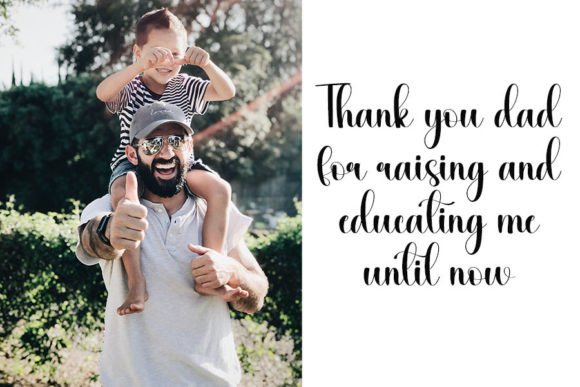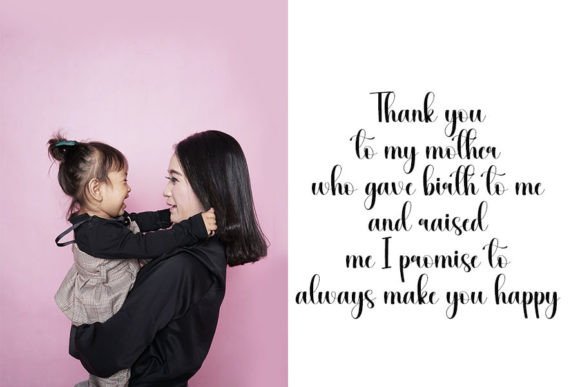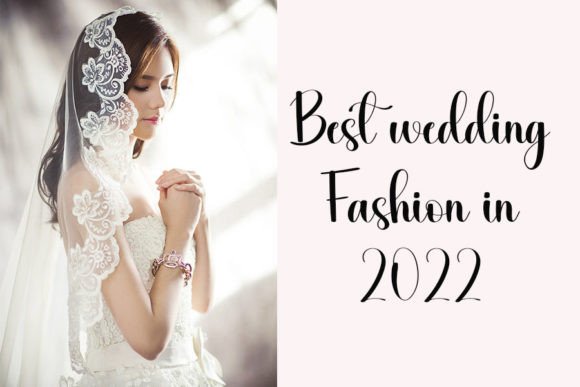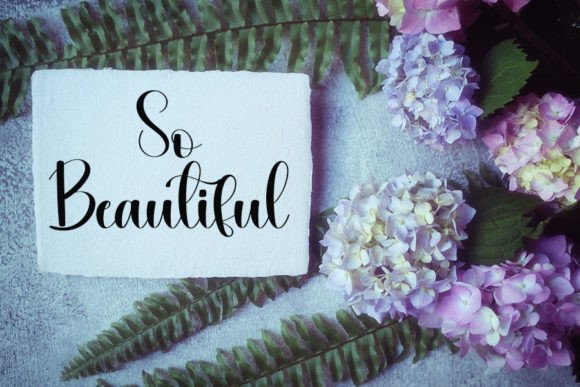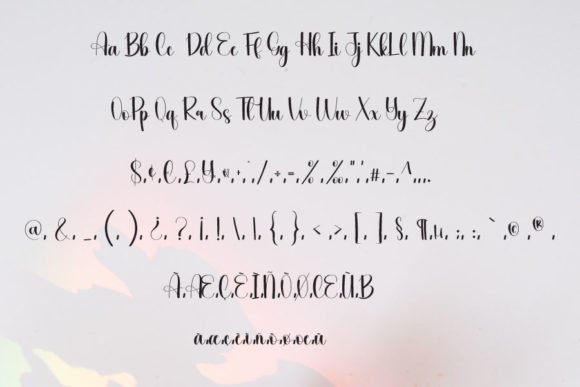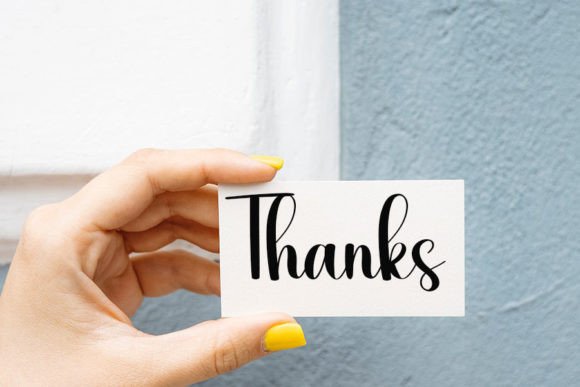
Introducing Harley Font: The Sweet and Beautiful Handwritten Font
Are you a designer or crafter looking for a unique and luxurious font to elevate your design projects? Look no further than Harley Font! This sweet and beautiful handwritten font is sure to add a touch of elegance and sophistication to any design. With its dancing characters and smooth lines, Harley Font is the perfect choice for those who want to create stunning and eye-catching designs.
What Makes Harley Font Special?
Harley Font is a one-of-a-kind handwritten font that features characters that dance along the baseline. This distinctive feature gives the font a playful and whimsical feel, making it perfect for designs that require a touch of personality. The font’s smooth lines and flowing curves also give it a luxurious and high-end feel, making it suitable for high-end branding, packaging, and advertising designs.
Key Features of Harley Font
- Handwritten style: Harley Font is a beautiful handwritten font that mimics the look of handwriting. It’s perfect for designs that require a personal and human touch.
- Dancing characters: The font’s characters dance along the baseline, giving it a playful and whimsical feel.
- Luxurious feel: The font’s smooth lines and flowing curves give it a luxurious and high-end feel.
- Versatile: Harley Font can be used for a wide range of design projects, from branding and packaging to advertising and digital design.
How to Use Harley Font in Your Design Projects
Harley Font is a versatile font that can be used in a variety of design projects. Here are some ideas to get you started:
- Branding and logo design: Use Harley Font to create a unique and memorable logo for your brand.
- Packaging design: Add a touch of luxury to your packaging designs with Harley Font.
- Advertising design: Use Harley Font to create eye-catching and effective advertising designs.
- Digital design: Use Harley Font in your digital designs, such as website headers, social media graphics, and email marketing campaigns.
Why Designers and Crafters Love Harley Font
Designers and crafters love Harley Font for its unique and luxurious feel. Here are some reasons why:
- Unique style: Harley Font has a distinctive style that sets it apart from other fonts.
- High-quality design: Harley Font is designed to high standards, ensuring that it looks great in any design project.
- Support for creative projects: Harley Font is perfect for designers and crafters who want to add a touch of personality to their creative projects.
Tips for Getting the Most Out of Harley Font
Here are some tips for getting the most out of Harley Font:
- Experiment with different sizes and colors: Try out different sizes and colors to see how Harley Font looks in different contexts.
- Pair with other fonts: Pair Harley Font with other fonts to create a unique and interesting typography combination.
- Use in combination with images: Use Harley Font in combination with images to create stunning and eye-catching designs.